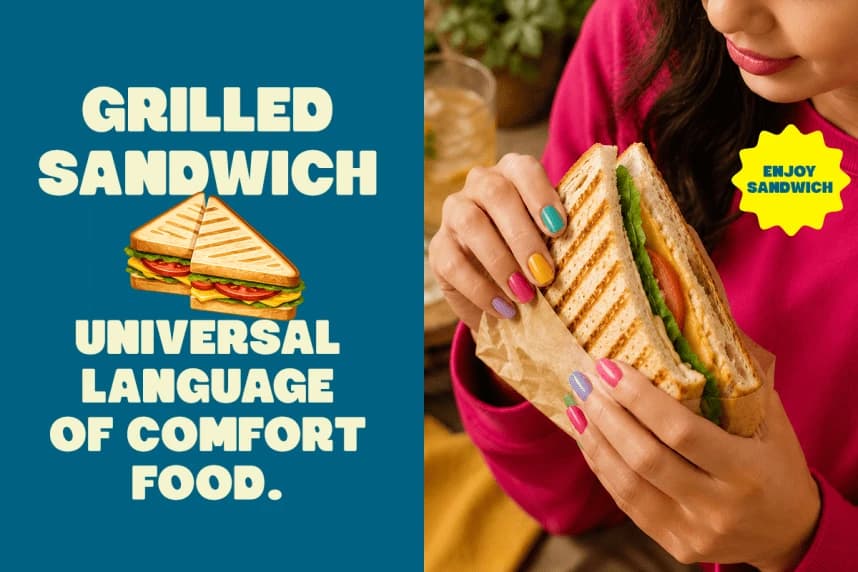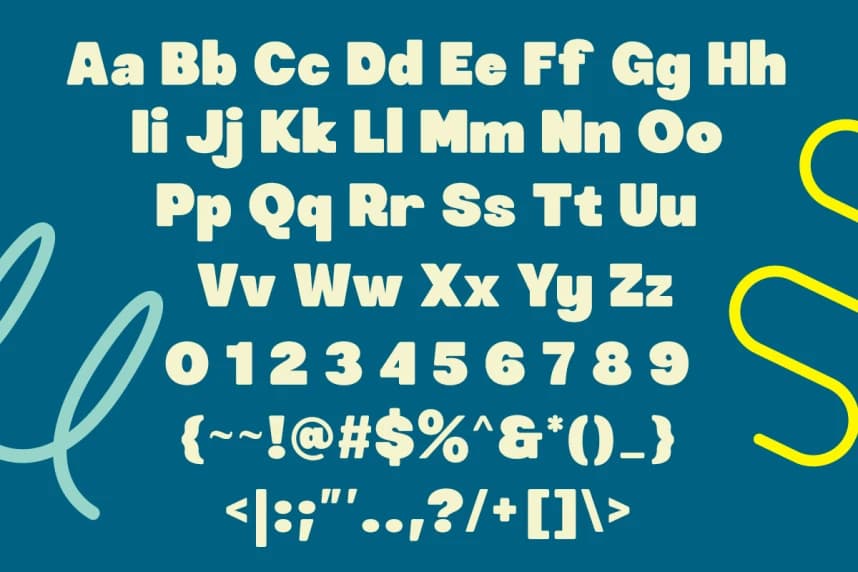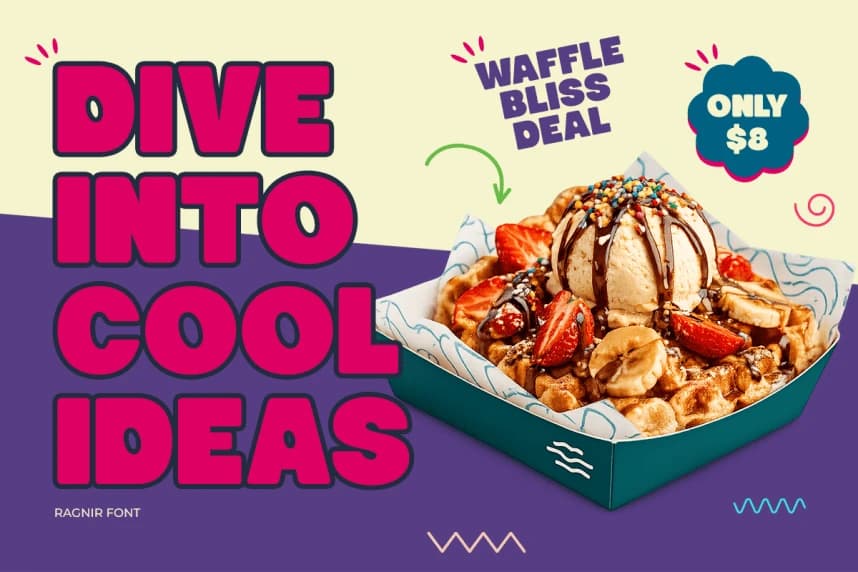
Ragnir Font
Ragnir Font is a bold rounded sans serif font built to command attention instantly. Featuring chunky letterforms, soft curves, and a playful modern character, this typeface combines strong visual impact with excellent readability.